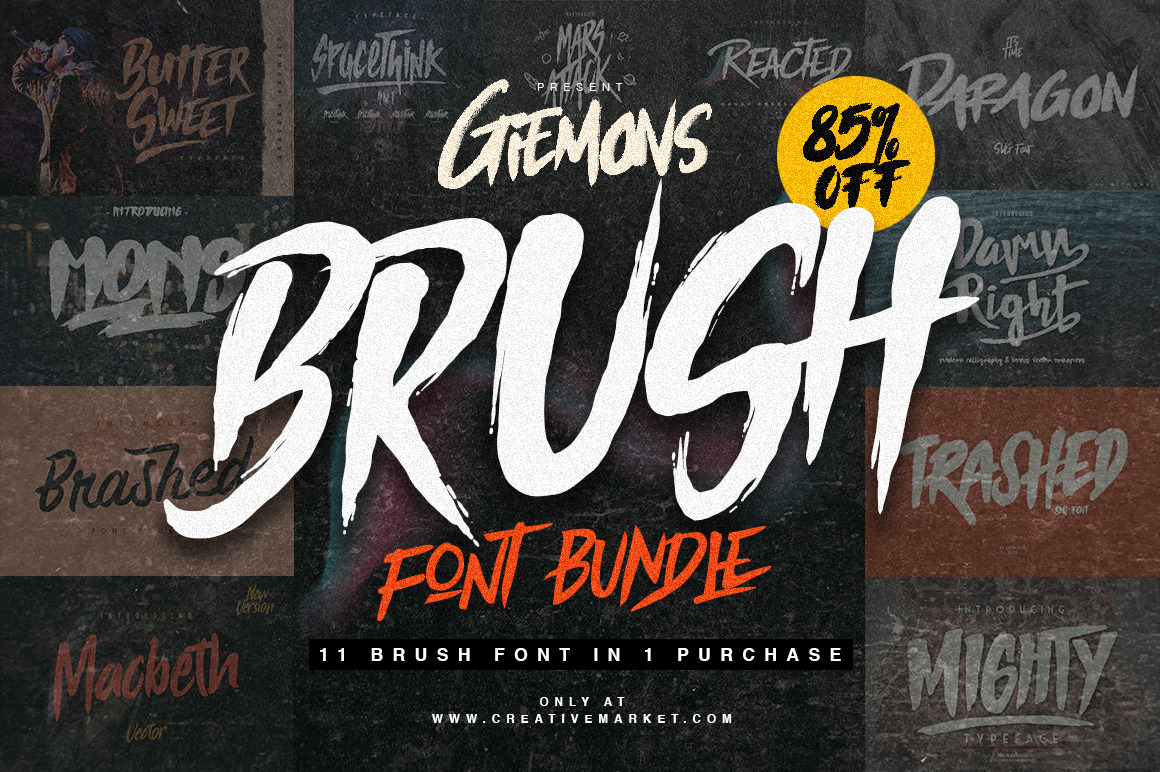
Brush Font Bundle
This Giemons Brush Font Bundle. There are 11 fonts Brush style and many of them have multiple styles. a variety of styles from hand-drawn prints and brush pressure. make easier for your message design. usefully for awesome display, labeling, clothing, movie sceen, poster, movie title, gigs, album covers, logos, and much more.